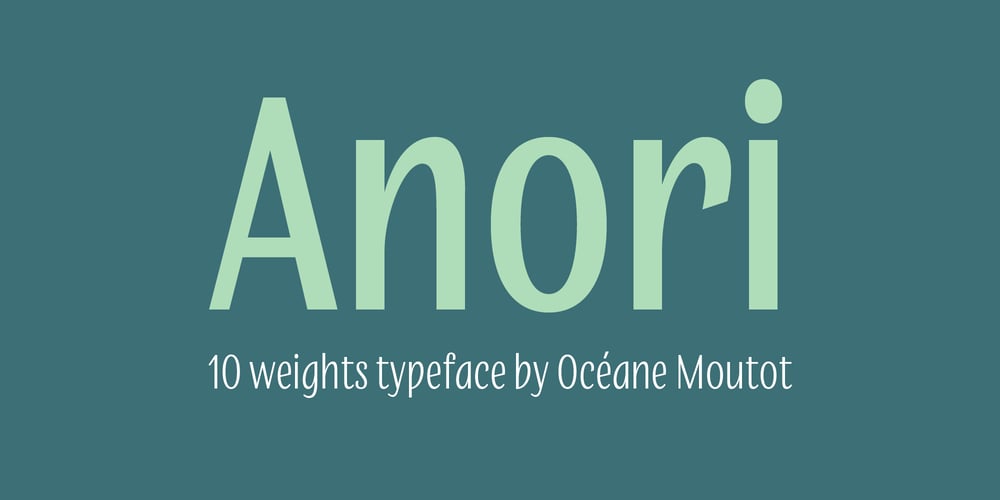
Anori
Anori font
Anori Font Family was designed by Océane Moutot and published by Océane Moutot. Anori contains 10 styles and family package options. Anori is a playful sans serif. Inspired by handwriting and the playfulness of the italic sharp, Anori is a dynamic, high contrast and smooth typeface. It will bring originality to your designs and the large variety of glyphs will give you freedom for all of your projects. Anori is available in 10 styles, from light to black, in roman and italic.